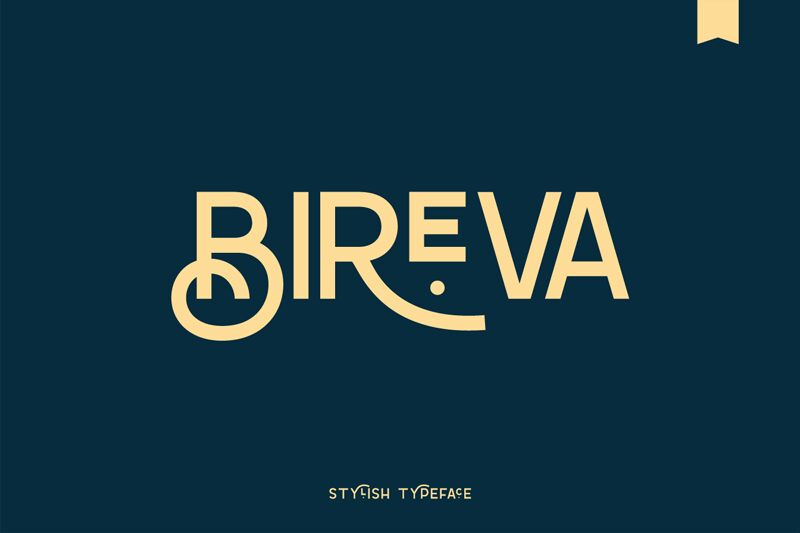
Bireva font is a stunning sans serif font designed by Fridaytype.
Beriva Sans - Stylish Typeface with alternates in each alphabets! This font fits in any project. You can use it for a tittle, logo, quotes, cover book, packaging, business card, or become a pairing in any script font. This font also support multi language!!
BIREVA